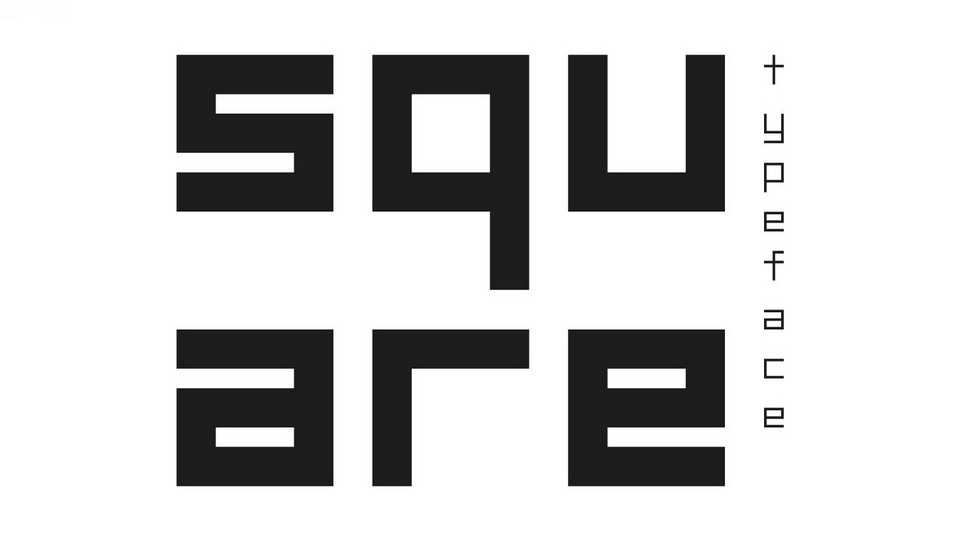
Download Square typeface, a geometric font family in three weights with square counterforms, giving the shapes a strong masculine and futuristic look, great for applications like innovation, technology, art and other display use.
Designer: Retr0